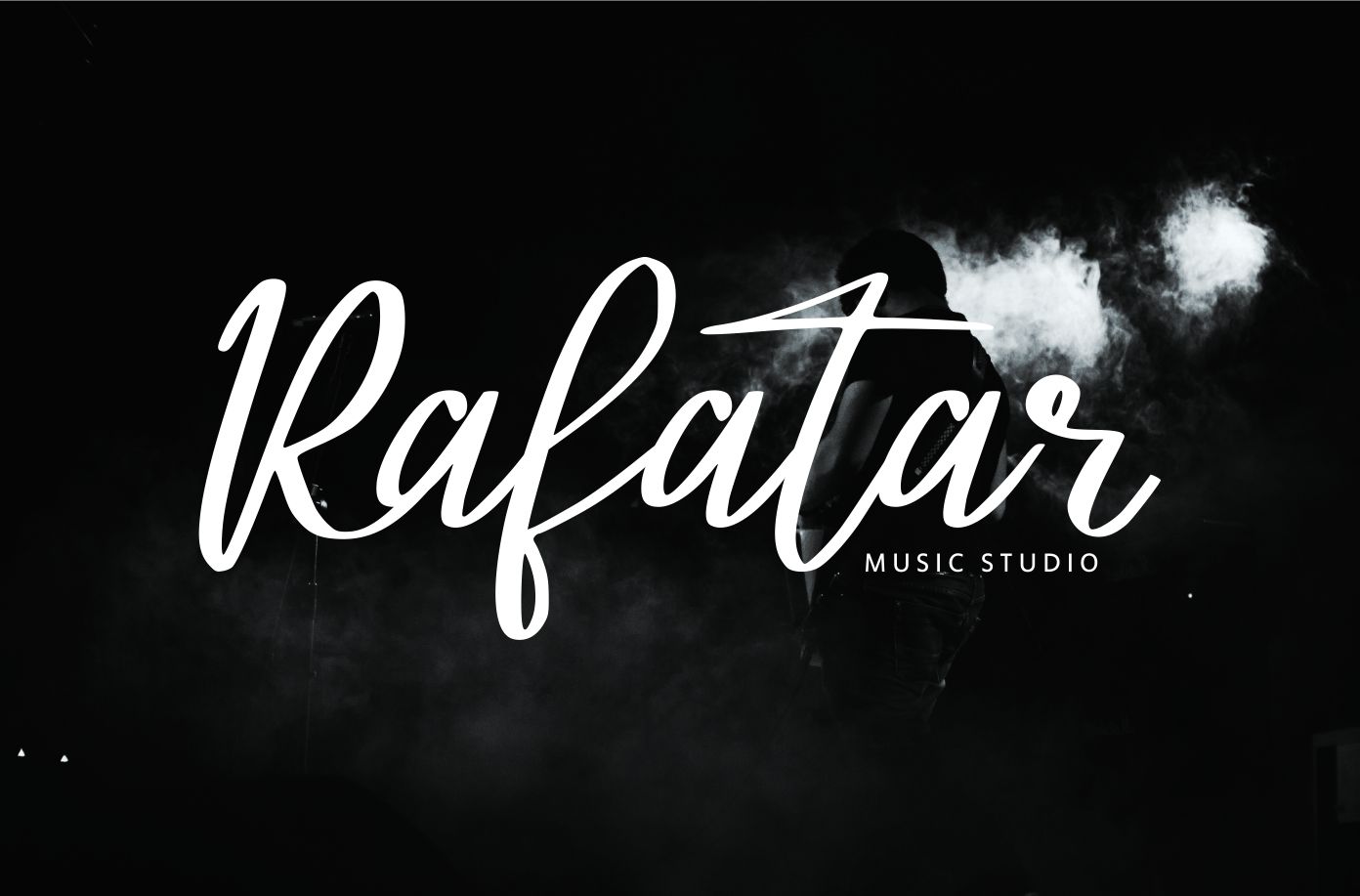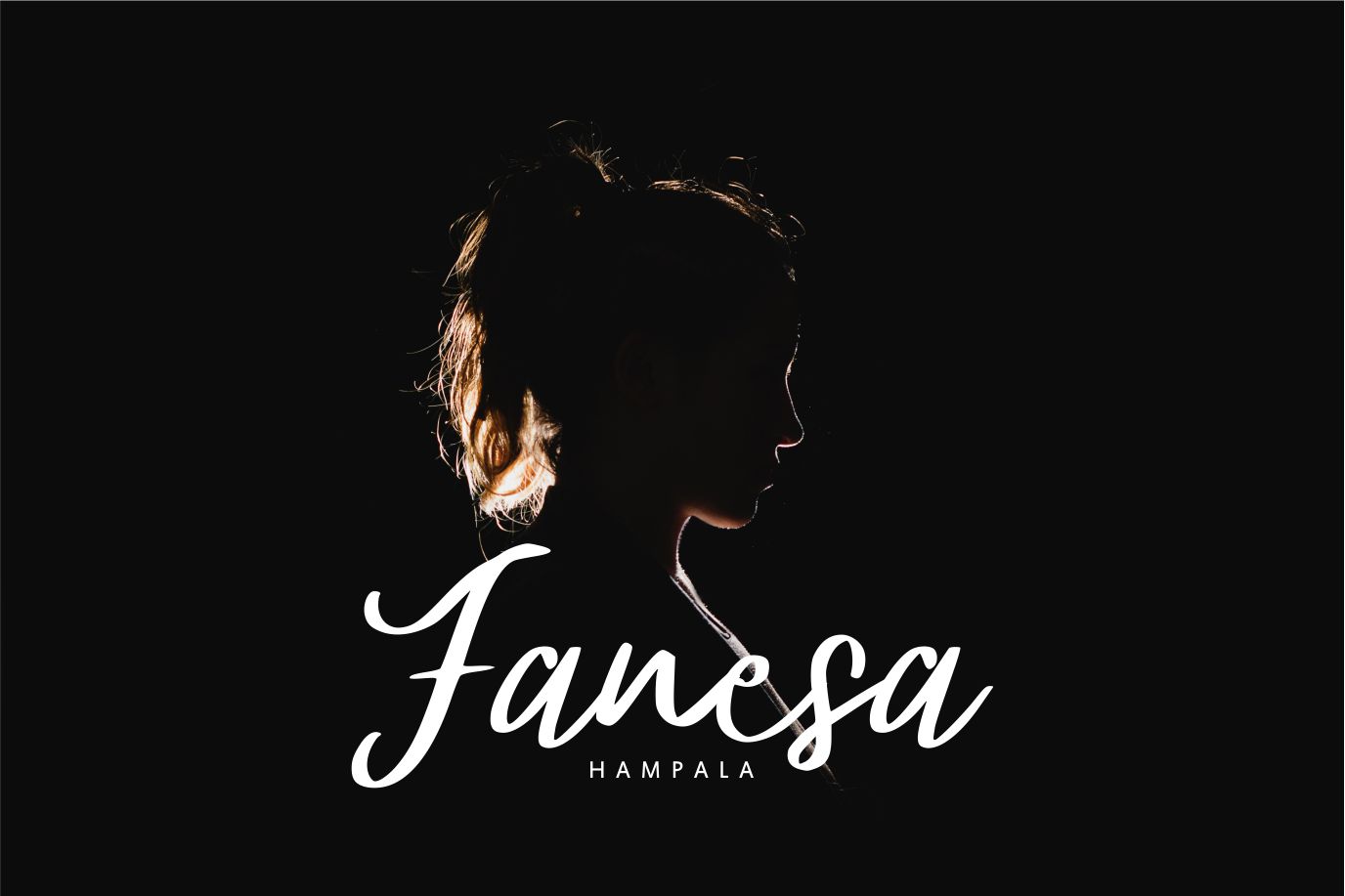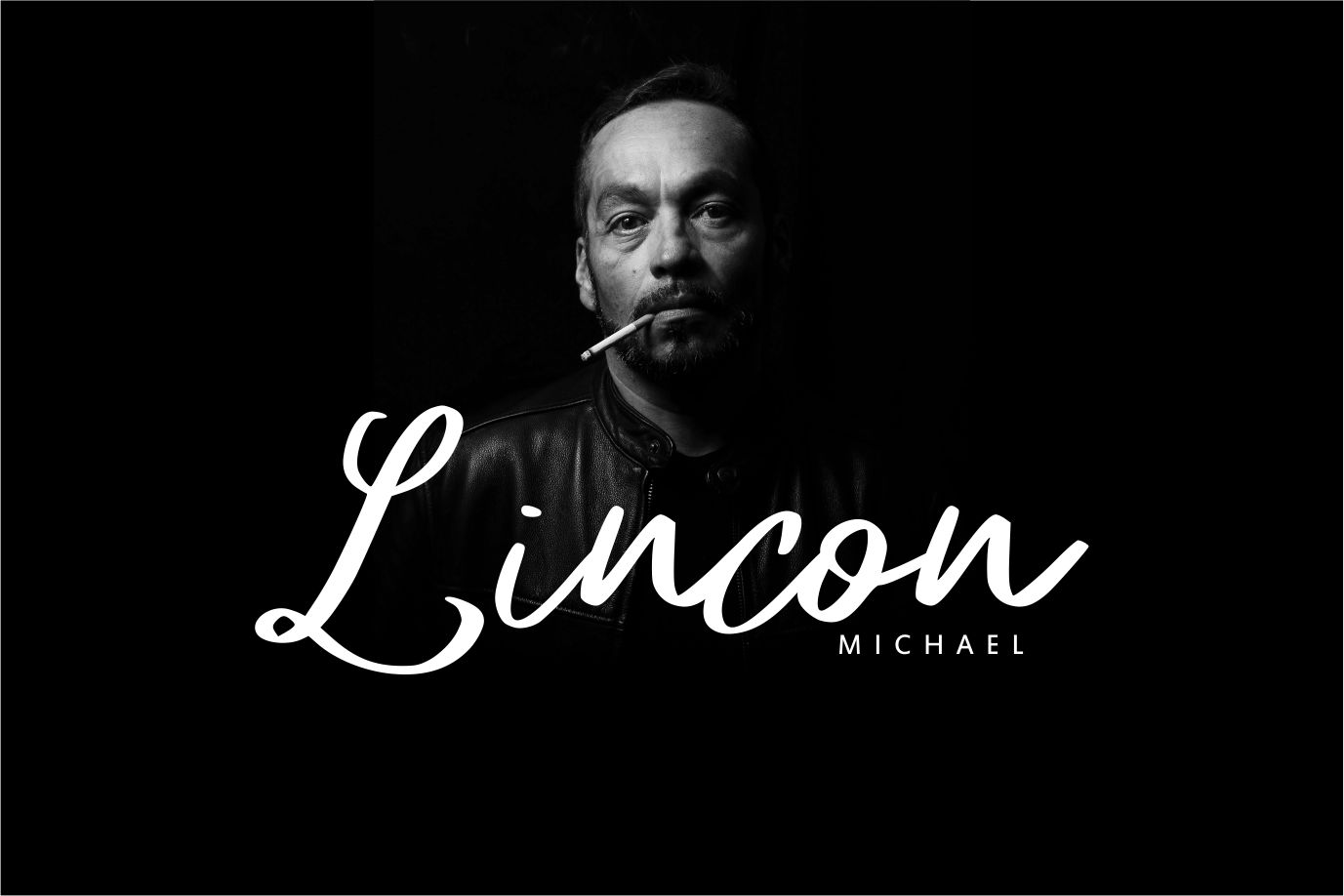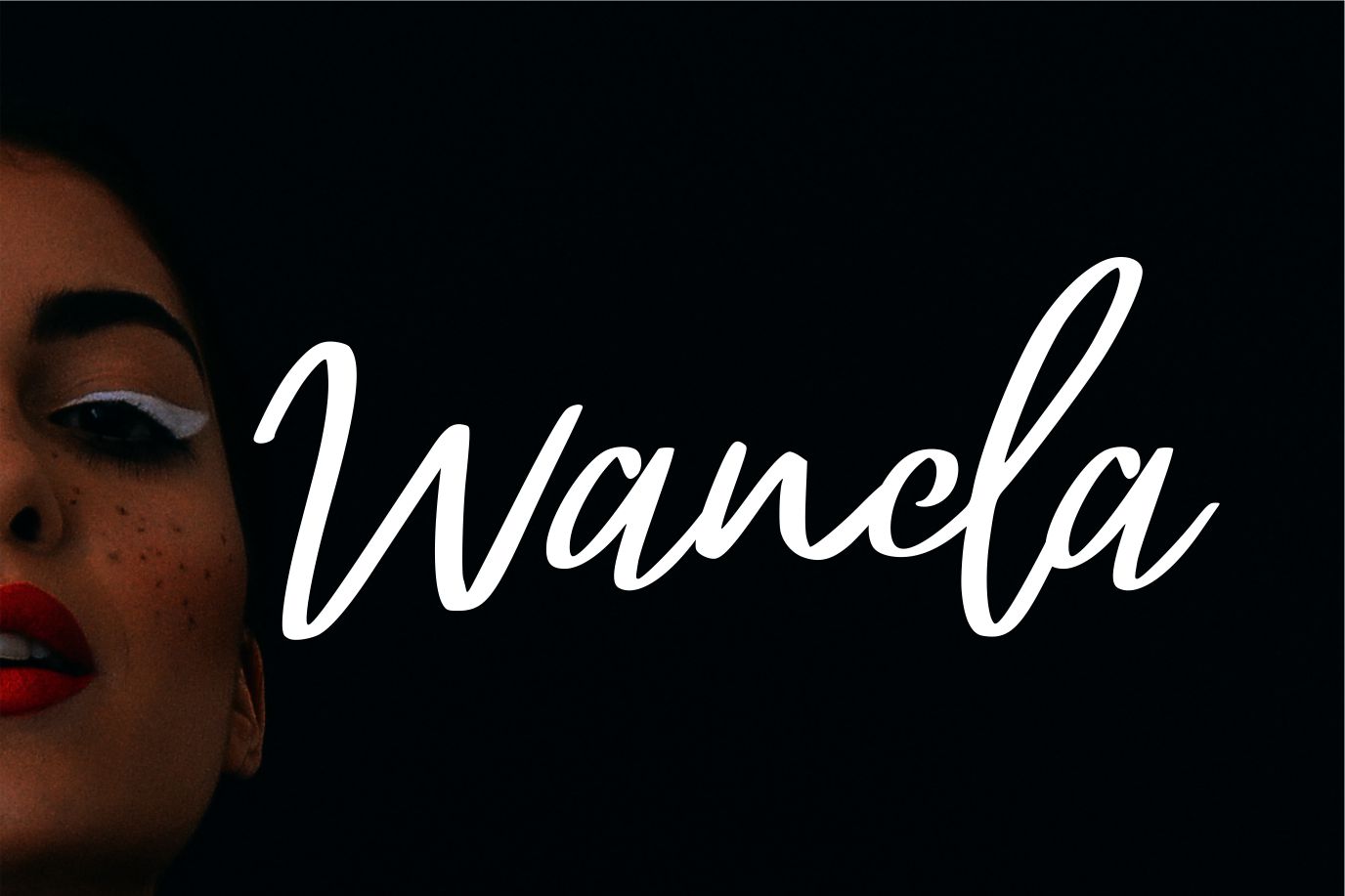
Atalintar | Natural Script Typeface Font
Atalintar | Natural Script Typeface with a calligraphy style, So beautiful on invitation like greeting cards, branding materials, business cards, quotes, posters, and more!
- Hundred of glyphs
- Alternates and Ligatures
- Fonts include Multilingual Support